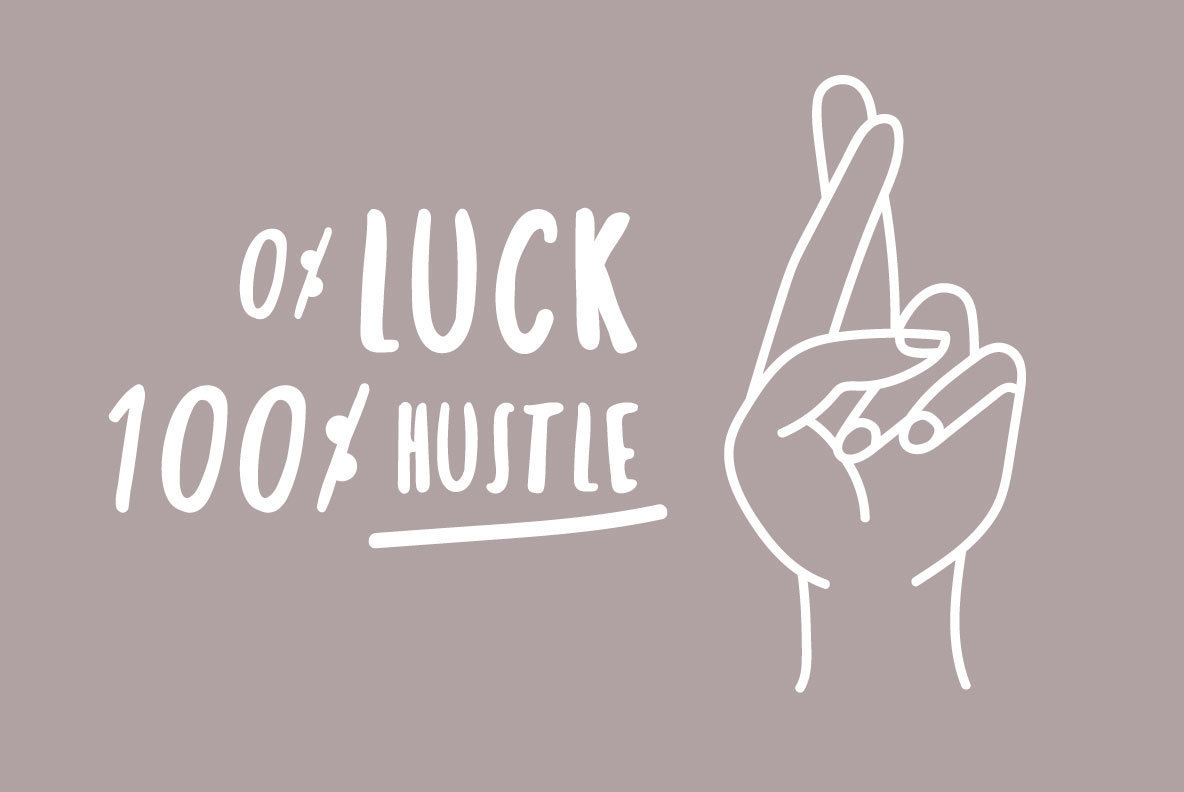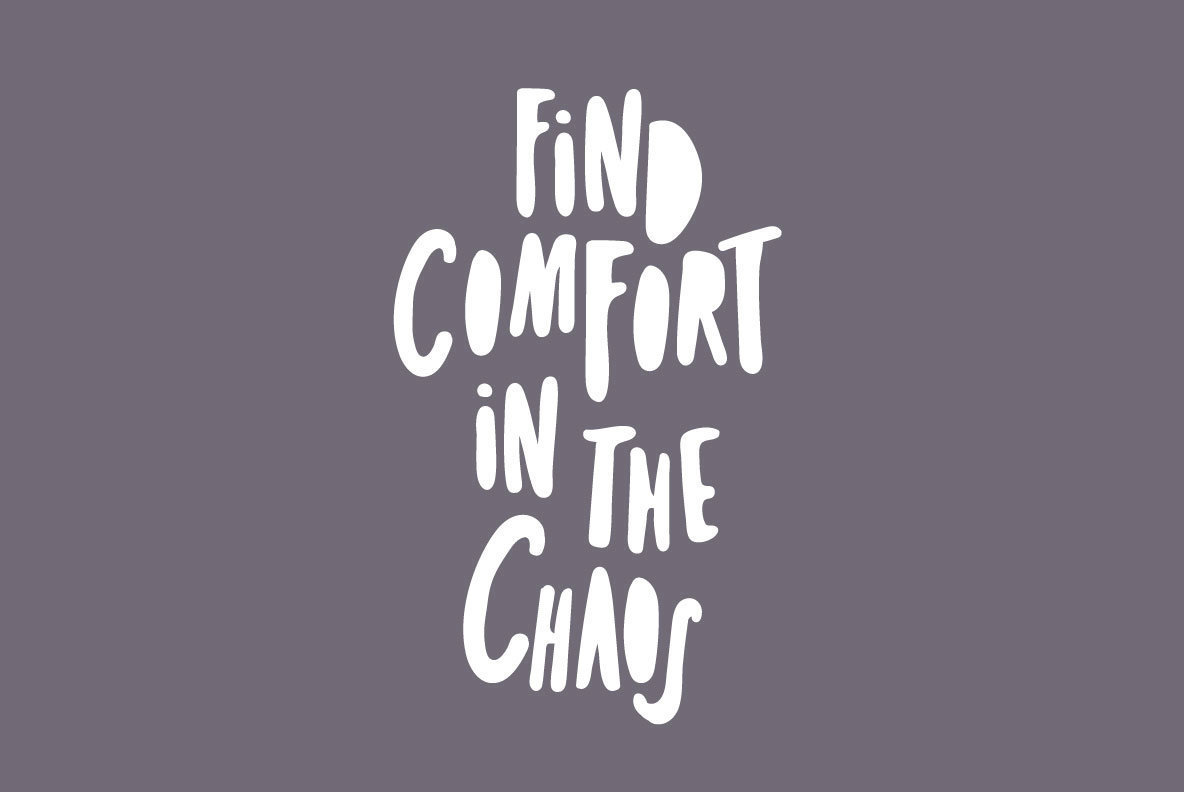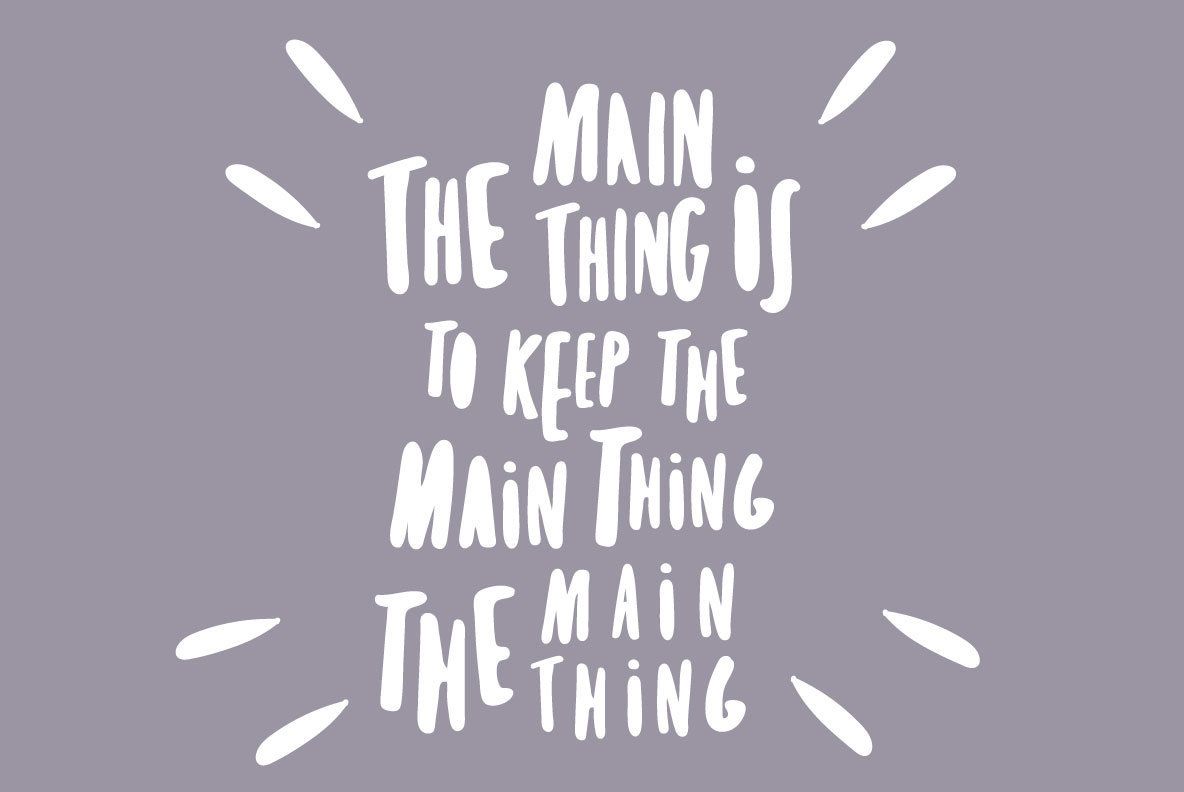
Twin Pines Font Duo
Twin Pines
Twin Pines Alt
Introducing Twin Pines, a sans serif font duo featuring both Regular and Alternative full case alphabets. This playful and quirky typeface offers the charm of a handwritten, marker-style design, allowing you to experiment with both lower- and uppercase letters for a fresh and distinct look. Perfect for creative projects, Twin Pines offers endless possibilities. Give your designs a unique touch by mixing letter cases for an individual style every time.Twin Pines Font Duo: Playful and Quirky Sans Serif